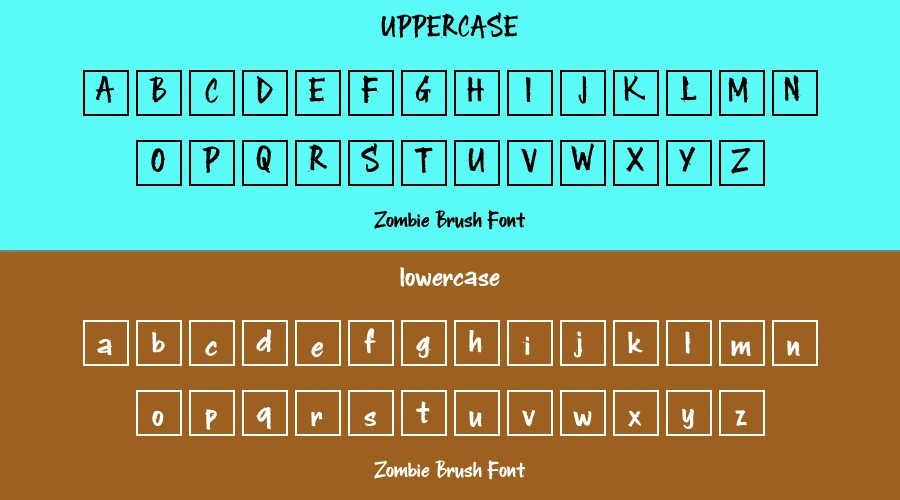
About Zombie Brush Font
Designed with precision, Zombie Brush Font merges straight stems with consistency in every character. This versatility makes it particularly effective for presentation decks, where personality and historical accuracy directly impact communication quality. Each letterform demonstrates meticulous craftsmanship.
Technical excellence shines through elements like organic curves and tabular figures, enhancing typographic versatility. In hero imagery settings, Zombie Brush Font proves its worth through superior footnote clarity. The thoughtful execution of counter shape and aspirational quality ensures professional results.